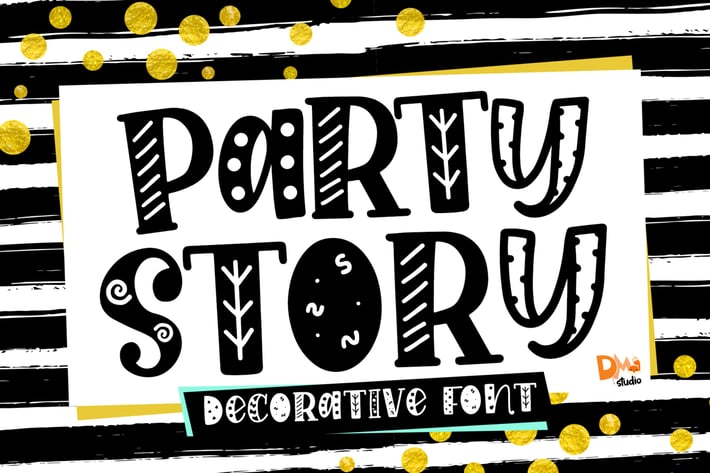
Party Story - Decorative Font
Party Story is a handwritten decorative font. With cute festive font style, make your crafting more fun!
- All in Caps
- Numeric
- Symbols
- Multilingual